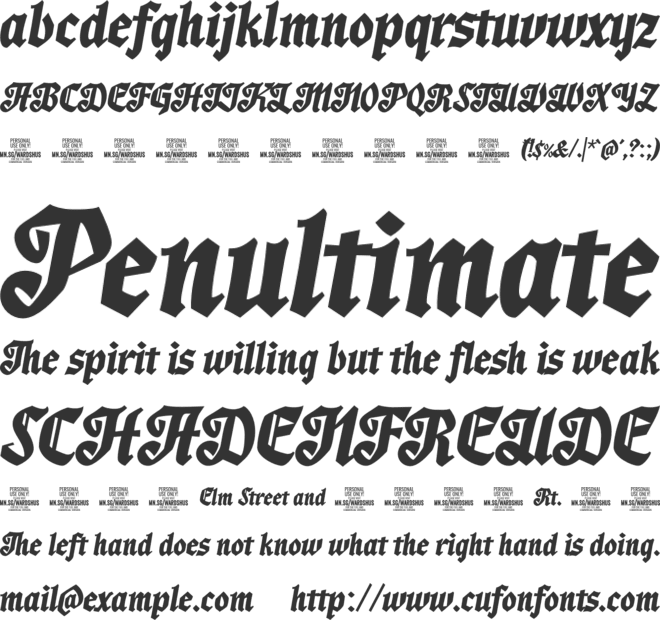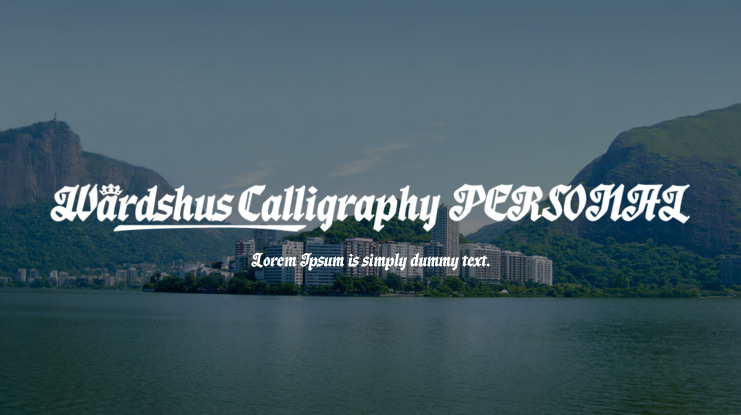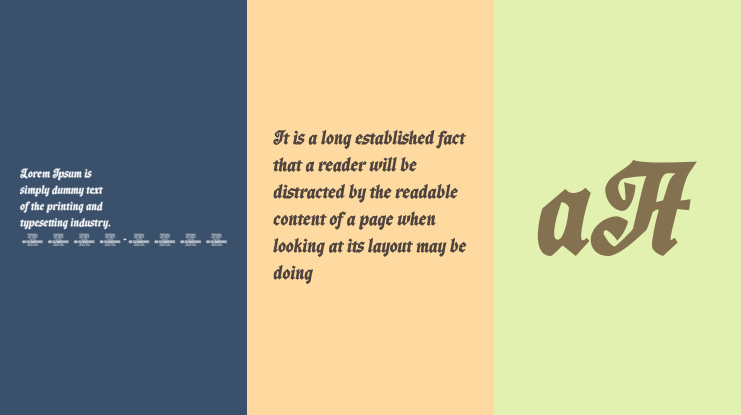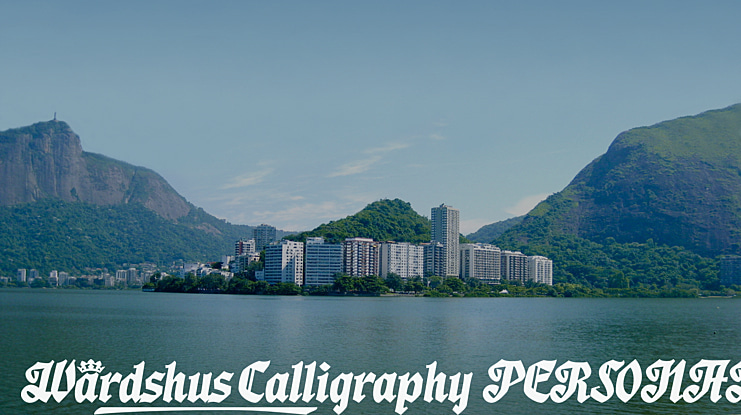
Wardshus Calligraphy PERSONAL Font
Wardshus Calligraphy is a unique blend of medieval gothic style and modern script, creating a distinctive and eye-catching blackletter font. The typeface is a testament to the rich artistic history of the past, reimagined for contemporary design projects.
Use # after any letter to make a crown.
Example: Que#en
Use underscore _ anywhere to make a swash.
Example: Kingdom_Heroes
Use multiple underscores to make underlines of different lengths.
Example: Knig___hters